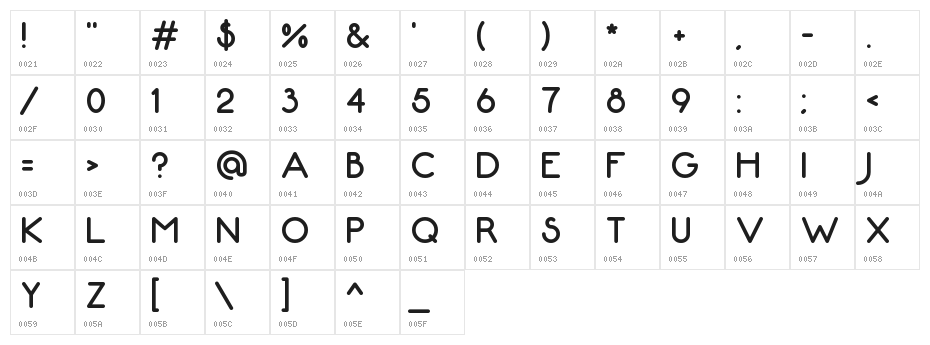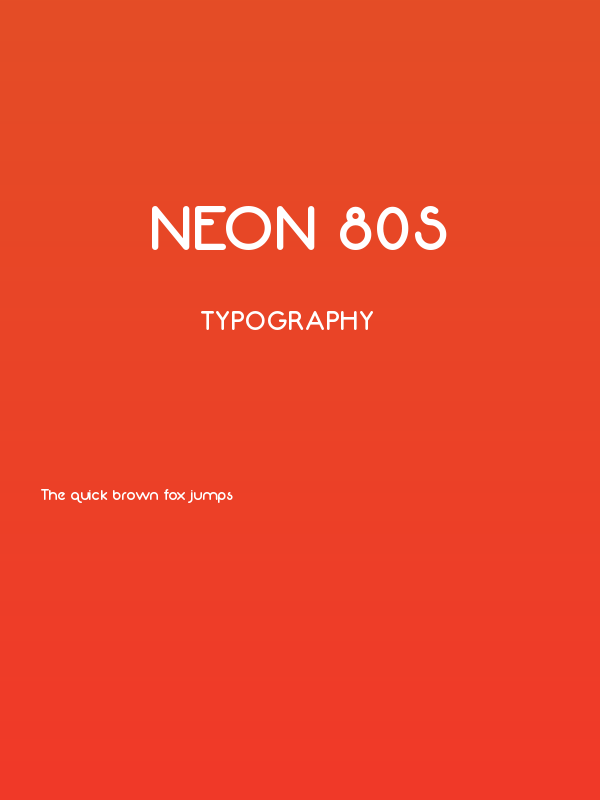
Neon 80s Font
Neon 80s Description
This font embodies a retro, 1980s aesthetic with a modern twist. Its rounded, smooth edges and uniform stroke width give it a playful yet sophisticated appearance. The characters are evenly spaced, creating a clean and balanced look. The uppercase letters are bold and prominent, while the lowercase letters maintain a consistent style, enhancing readability. The numbers and special characters are designed with the same attention to detail, ensuring versatility across various applications. This font is ideal for projects that aim to capture a nostalgic yet contemporary vibe.
| Overall Style | Modern, Vintage |
| Proposed Projects | Ideal for branding, posters, and digital media that require a nostalgic yet modern look. |